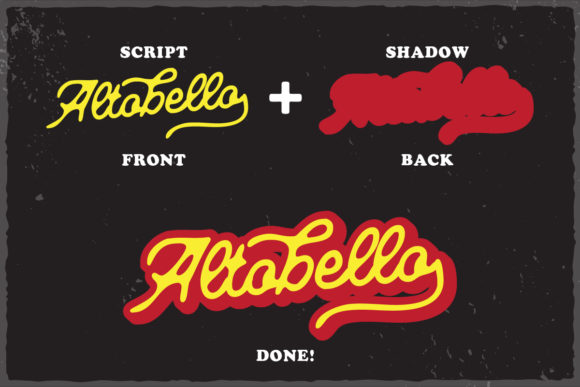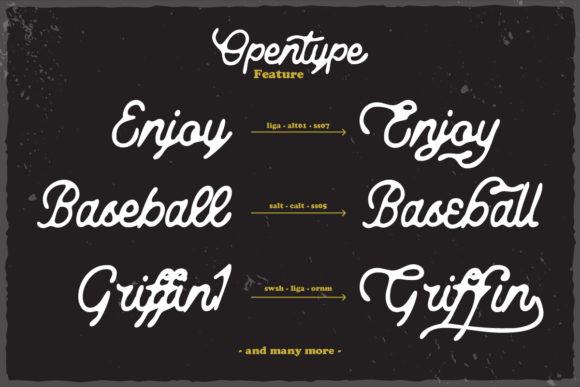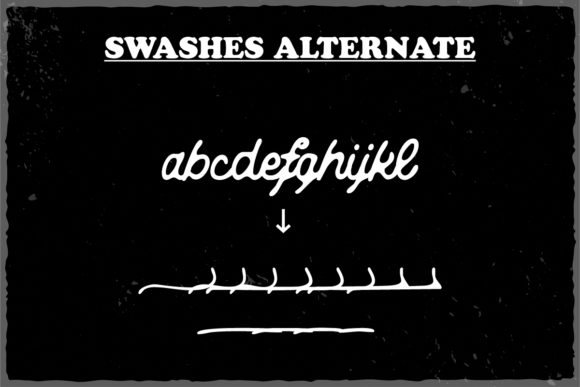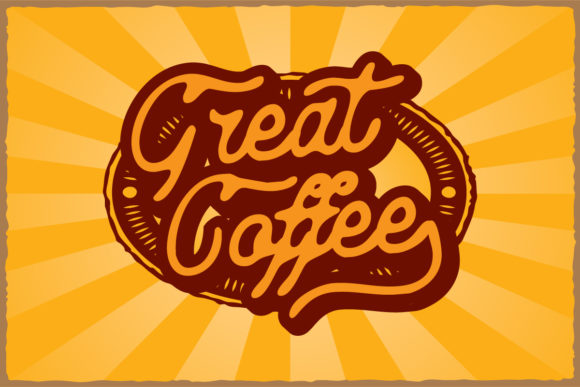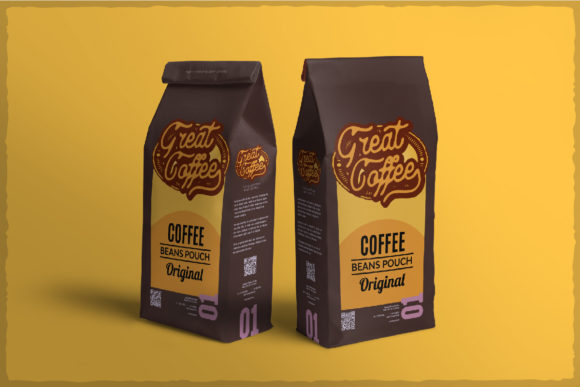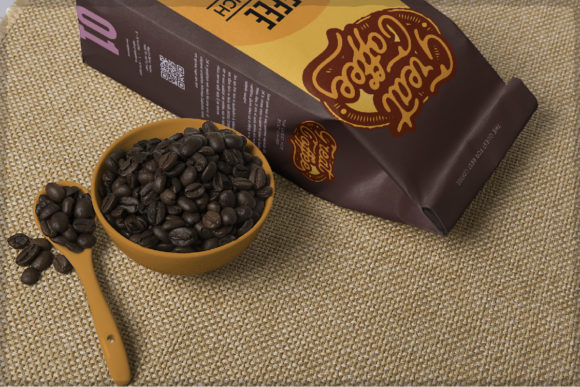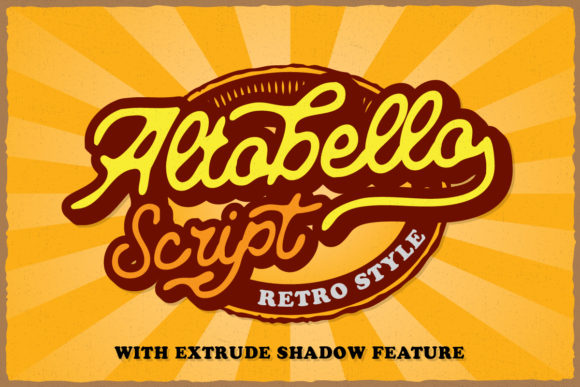
Introducing Altobello Font: The Retro Script with a Bold Shadow Feature
Are you looking for a font that can add a touch of nostalgia and elegance to your design projects? Look no further than Altobello Font, a retro script with a bold shadow feature that’s sure to inspire. In this article, we’ll dive into the world of Altobello Script and explore its unique characteristics, uses, and benefits.
What is Altobello Font?
Altobello Font is a carefully crafted retro script that exudes a sense of sophistication and charm. Its bold swashes and authentic feel make it perfect for designers and crafters looking to add a touch of vintage flair to their work. The font’s unique feature is its bold shadow, which adds depth and dimension to any design.
Key Features of Altobello Script
- Bold Swashes: Altobello Script features bold swashes that add a touch of drama and elegance to any design.
- Authentic Charm: The font’s retro feel and authentic charm make it perfect for designers looking to create vintage-inspired designs.
- Bold Shadow Feature: The bold shadow feature adds depth and dimension to any design, making it stand out from the crowd.
Uses of Altobello Font
Altobello Font is versatile and can be used in a variety of design projects, including:
- Branding and Logo Design: The font’s bold swashes and authentic charm make it perfect for creating unique and memorable logos.
- Invitations and Stationery: Altobello Script is ideal for creating elegant invitations, greeting cards, and stationery.
- Packaging Design: The font’s bold shadow feature makes it perfect for creating eye-catching packaging designs.
- Digital Design: Altobello Font can be used in digital designs, such as social media graphics, website headers, and more.
Benefits of Using Altobello Script
Using Altobello Script in your design projects offers several benefits, including:
- Unique and Memorable Designs: The font’s bold swashes and authentic charm help create unique and memorable designs.
- Time-Saving: Altobello Script comes with a range of features, including bold swashes and a bold shadow feature, which can save you time and effort in your design projects.
- High-Quality Design: The font is carefully crafted to ensure high-quality design, making it perfect for professional designers and crafters.
Tips for Using Altobello Font
Here are some tips for using Altobello Script in your design projects:
- Experiment with Different Sizes: Try using Altobello Script in different sizes to create visual interest and hierarchy in your designs.
- Pair with Other Fonts: Pair Altobello Script with other fonts to create a unique and interesting contrast.
- Use the Bold Shadow Feature: Don’t be afraid to use the bold shadow feature to add depth and dimension to your designs.
Altobello Font is a unique and versatile retro script that’s perfect for designers and crafters looking to add a touch of nostalgia and elegance to their design projects. With its bold swashes, authentic charm, and bold shadow feature, Altobello Script is sure to inspire and elevate your designs. Whether you’re creating branding and logo designs, invitations and stationery, packaging designs, or digital designs, Altobello Font is a great choice.